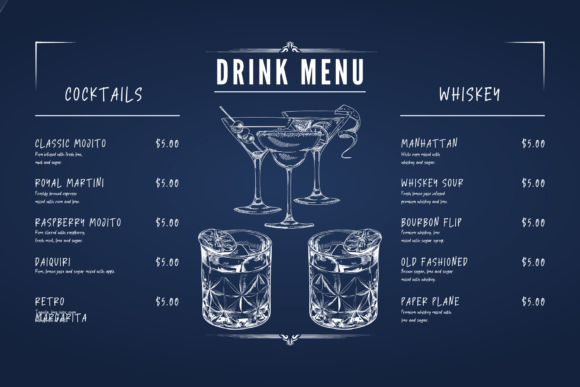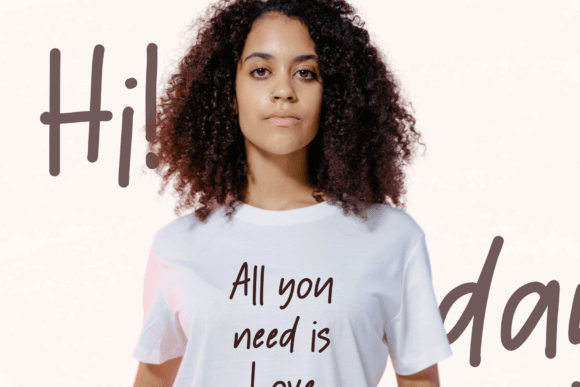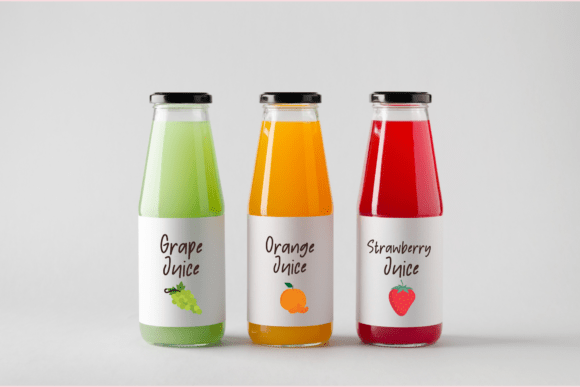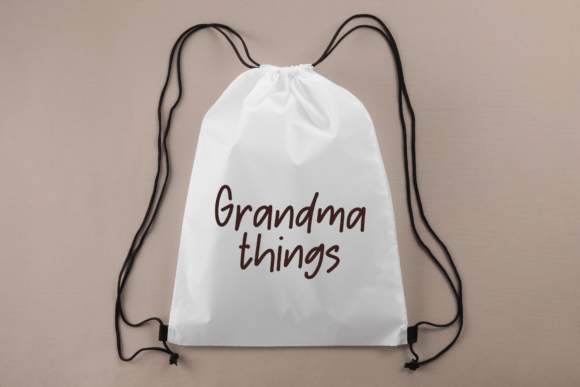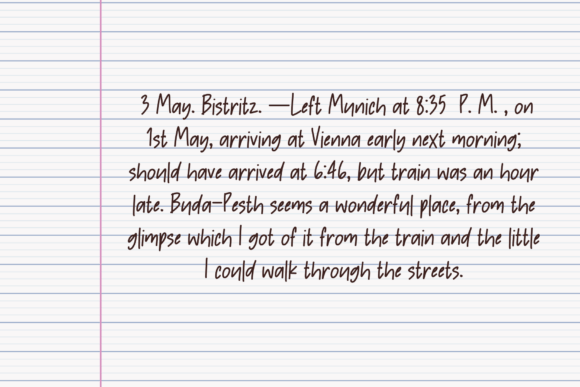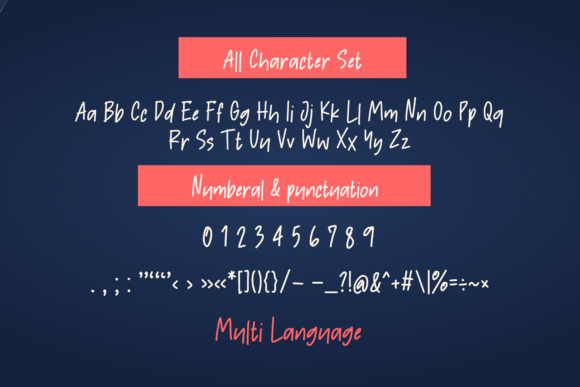
Introduction to Mild Bean Font
Have you ever found yourself staring at a blank canvas, waiting for the perfect spark to ignite your creativity? It’s a feeling many designers know all too well. But what if I told you that there’s a secret to unlocking your full design potential? For me, it’s all about finding the right font to bring my ideas to life. That’s where the Mild Bean Font comes in – a delightful handwritten font that adds a touch of playfulness and authenticity to any project.
Whether you’re working on a high-quality creative project or just need a design resource to give your work a personal touch, the Mild Bean Font is an excellent choice. Its transparent background and free download option make it a valuable addition to any designer’s toolkit.
As a designer, you understand the importance of having the right tools at your disposal. The Mild Bean Font is a game-changer, allowing you to add a touch of whimsy to your designs and elevate your work to the next level.
Key Features of Mild Bean Font
- Comes with a transparent background, allowing for seamless integration into various designs
- Includes 4 font styles with a range of weights and styles to suit different design needs
- Unique characteristics: Hand-drawn illustrations and subtle textures add a touch of personality to any design
Honest Review: Mild Bean Font
I recently stumbled upon the Mild Bean Font while searching for a unique design resource for a creative project. I must say, I was impressed with the overall quality and versatility of this font.
What works well: ✨ The Mild Bean Font comes with a transparent background, which is perfect for designers who want to maintain a consistent design aesthetic. The font also has a wide range of applications, from headings to body text, making it a great addition to any design project.
- High-quality design: The font is well-designed and looks great in both digital and print formats.
- Customizable: The font can be easily customized to fit the specific needs of your project.
Limitations: ⚠️ While the Mild Bean Font is a great addition to any design project, it may not be suitable for all types of projects. The font is more suited for creative projects with a relaxed or casual tone.
Overall impression: I’m thoroughly impressed with the Mild Bean Font and would highly recommend it to designers looking for a high-quality, creative font for their next project.
Mild Bean Font
The Mild Bean Font is a versatile, high-quality design resource ideal for creative projects. This font features a transparent background, making it perfect for overlaying text on images.
The Mild Bean Font is ideal for use in social media graphics, blog posts, and marketing materials. Its transparent background makes it perfect for overlaying text on images, adding a creative touch to your designs.
Getting the Most Out of the Mild Bean Font
To get the most out of the Mild Bean Font, experiment with different font sizes, colors, and styles to create unique and eye-catching designs. You can also combine the font with other design elements, such as images and graphics, to create a cohesive and engaging visual identity.